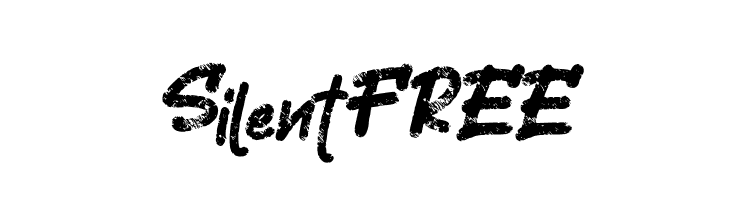
A bold, brush-style font with dynamic and expressive strokes.
A bold, expressive brush-style font with a dynamic, hand-painted appearance.
A bold, textured font with a brush stroke effect and a casual, energetic style.